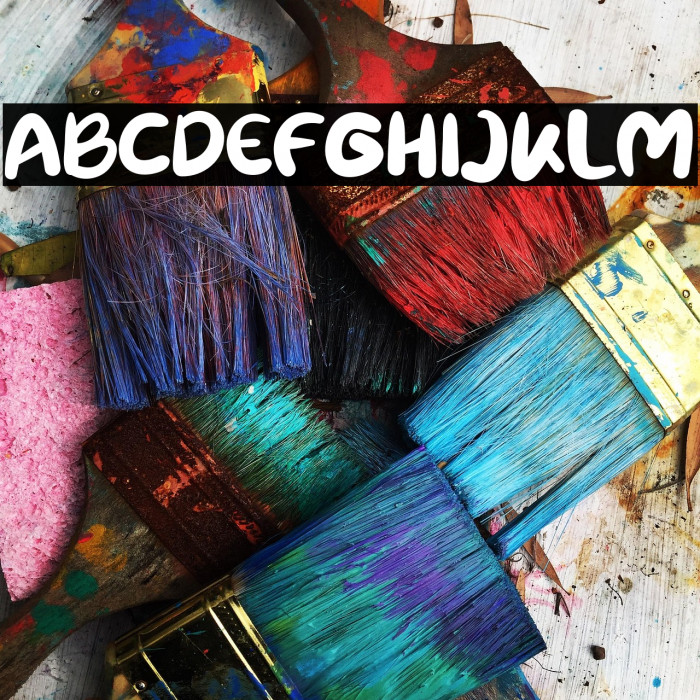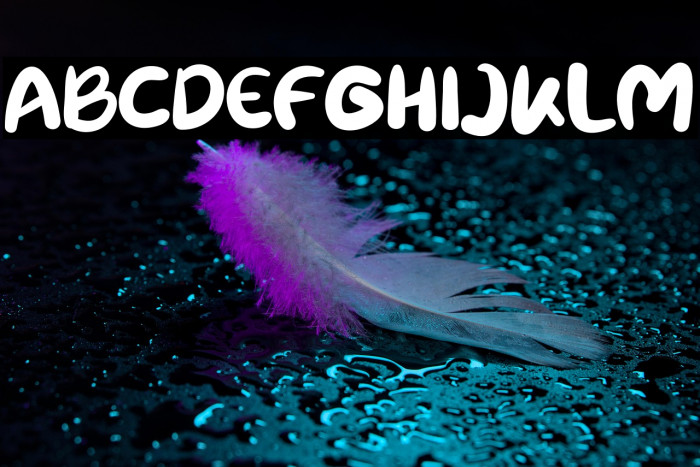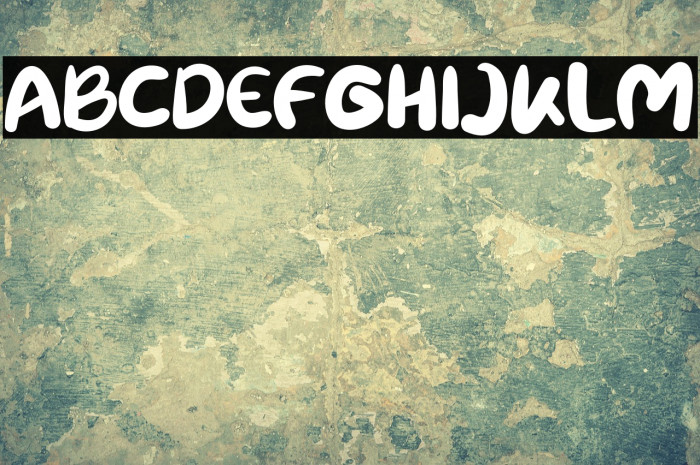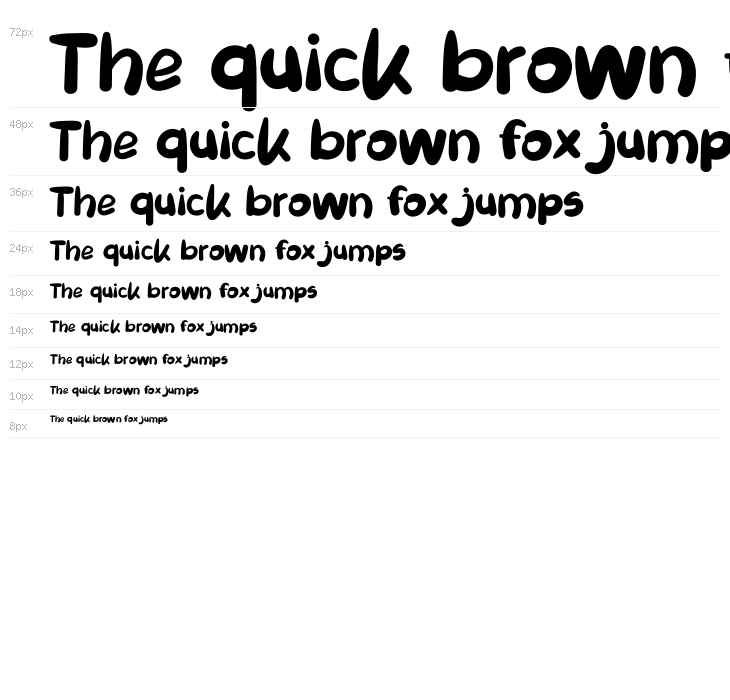
BOHO BABE Font
BOHO BABE Description
This playful and bold font features rounded, thick strokes that give it a friendly and approachable appearance. The characters are slightly irregular, adding a whimsical touch that is both modern and casual. The uppercase and lowercase letters maintain a consistent style, with smooth curves and a uniform thickness throughout. Numbers and special characters are designed with the same playful aesthetic, making them easily recognizable and visually appealing. This font's unique style is perfect for projects that require a fun and engaging look.
| Overall Style | Playful |
| Proposed Projects | Ideal for children's books, playful branding, casual invitations, and creative posters. |